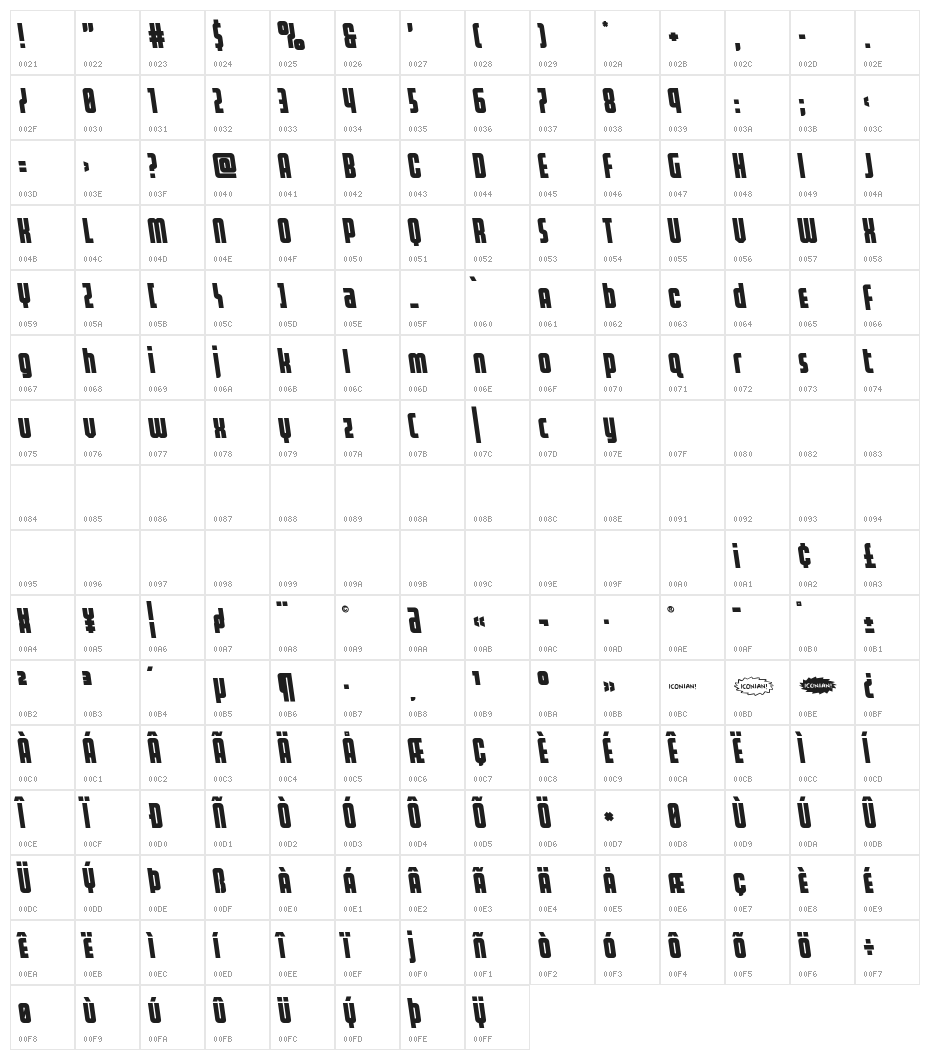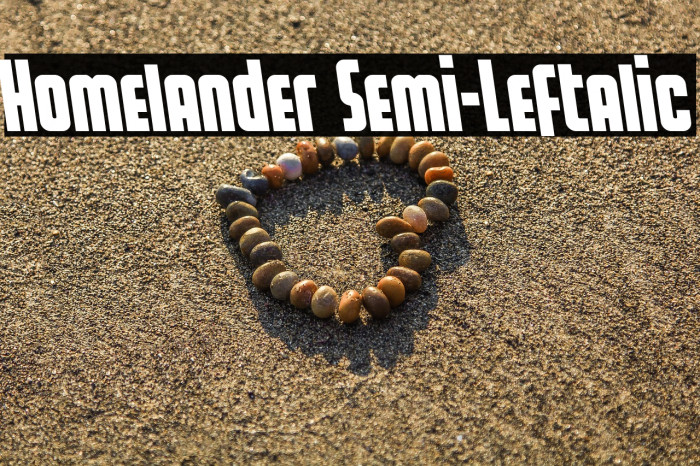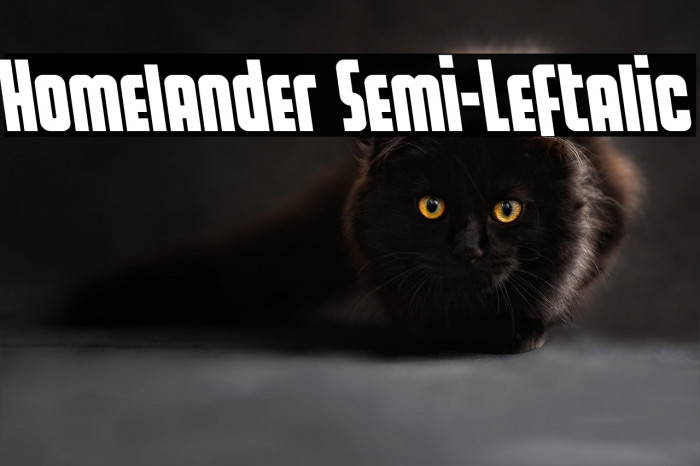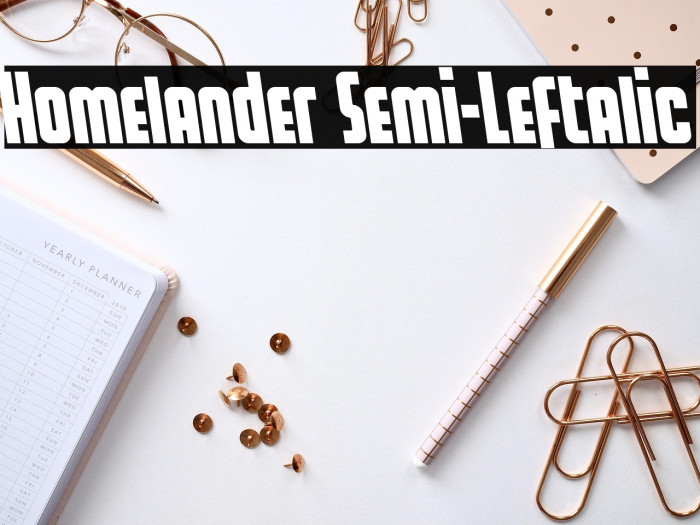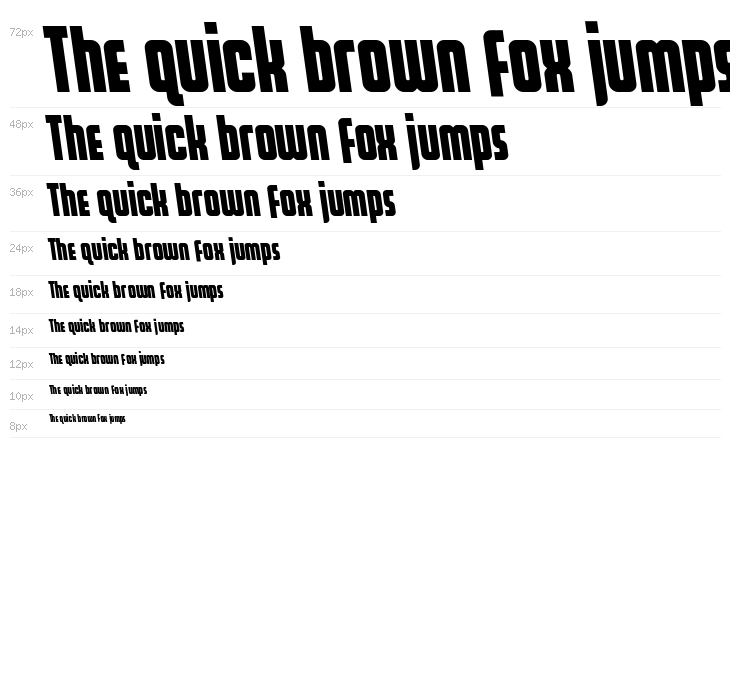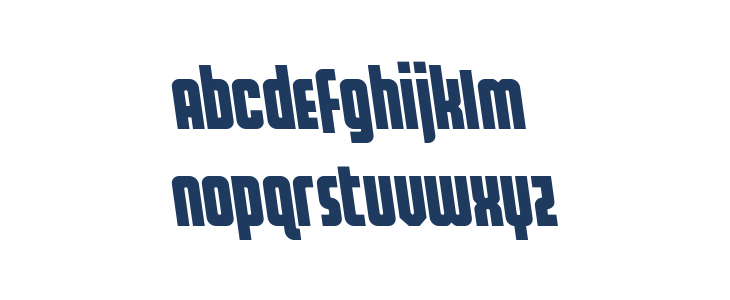
Homelander Semi-Leftalic Font
Homelander Semi-Leftalic Description
This font features a bold and dynamic design with a leftward slant, giving it a unique and striking appearance. The characters are thick and blocky, with a strong presence that commands attention. The uppercase and lowercase letters maintain a consistent style, with slightly rounded edges that soften the overall look. The numerals and special characters are equally bold, ensuring uniformity across all text elements. This font's distinctive style makes it ideal for projects that require a bold statement.
Proposed ProjectsIdeal for posters, headlines, branding, and any design requiring a bold, impactful look.